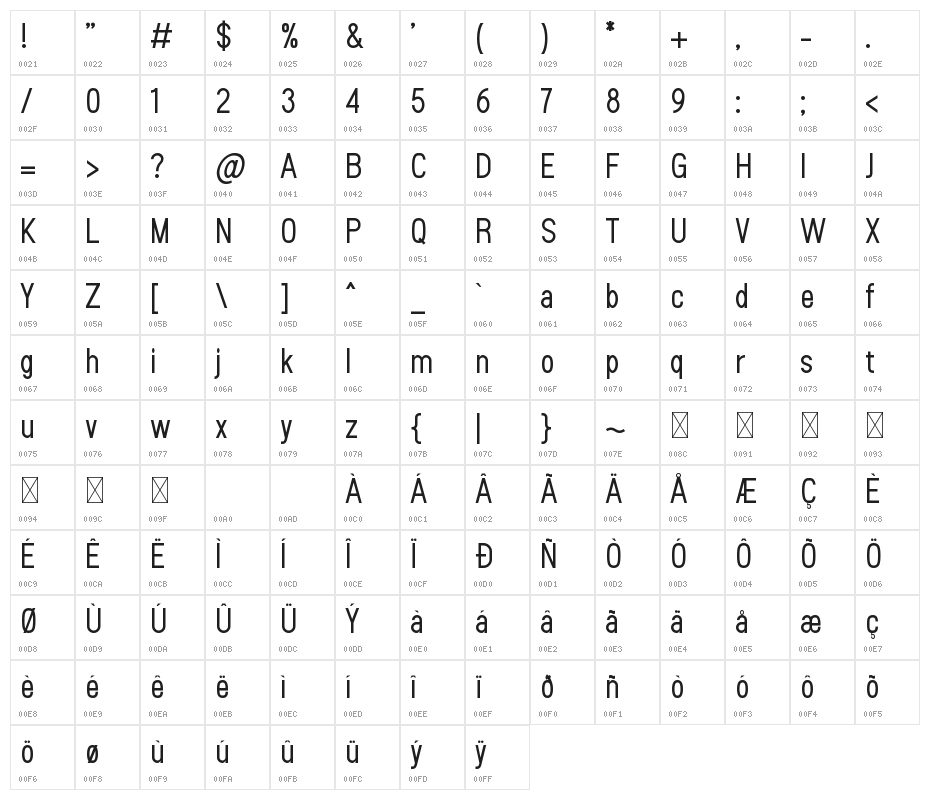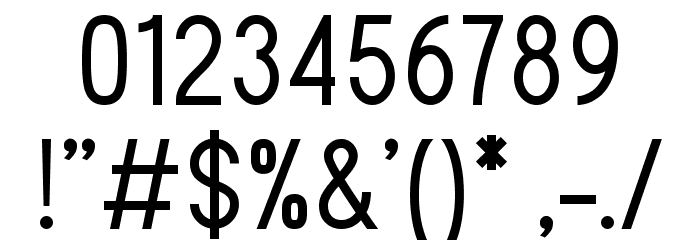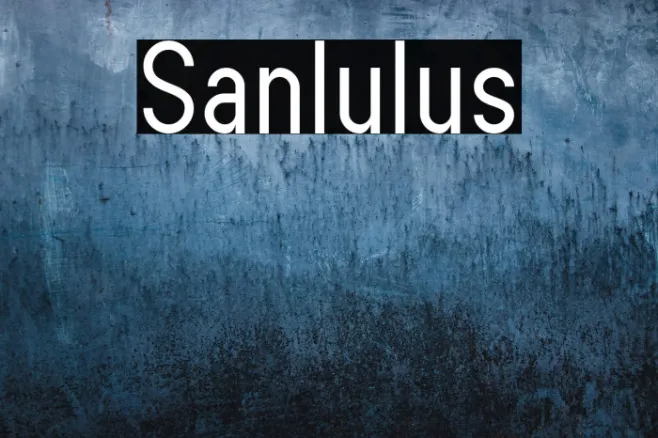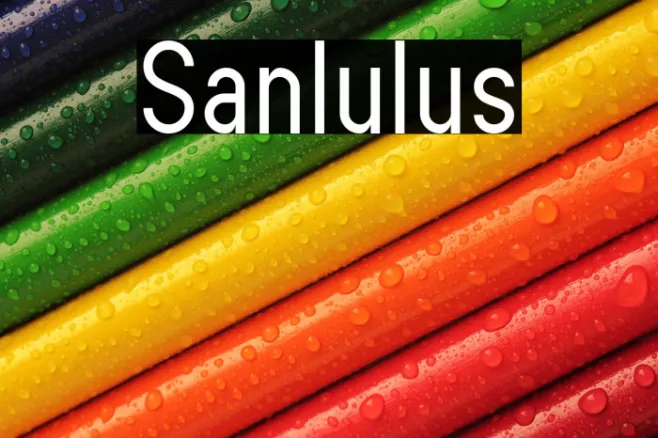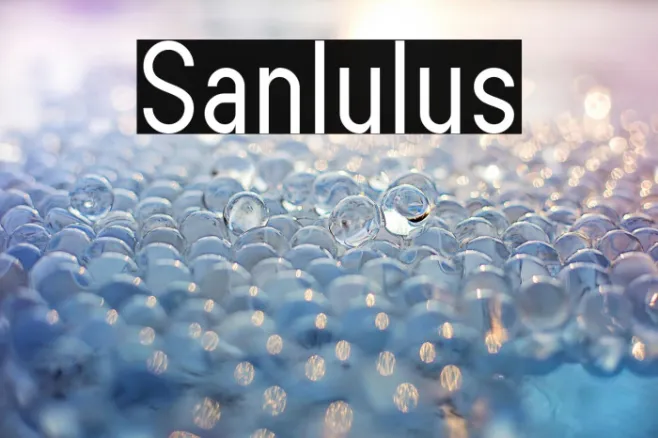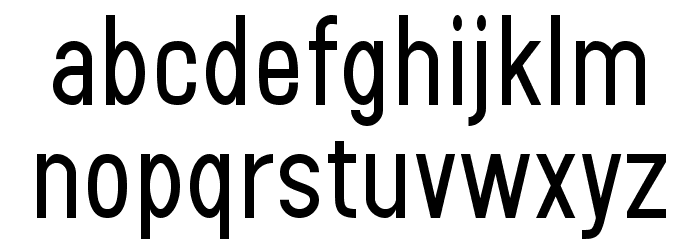
Sanlulus Font
Sanlulus Description
This font exhibits a clean and modern sans-serif style, characterized by its uniform stroke width and geometric shapes. The uppercase letters are tall and slightly condensed, providing a strong and assertive appearance. The lowercase letters maintain a consistent height, contributing to a balanced and harmonious look. The numerals are clear and legible, making them suitable for various applications. Special characters are well-defined, ensuring versatility in design projects. Overall, the font's simplicity and clarity make it ideal for contemporary design needs.